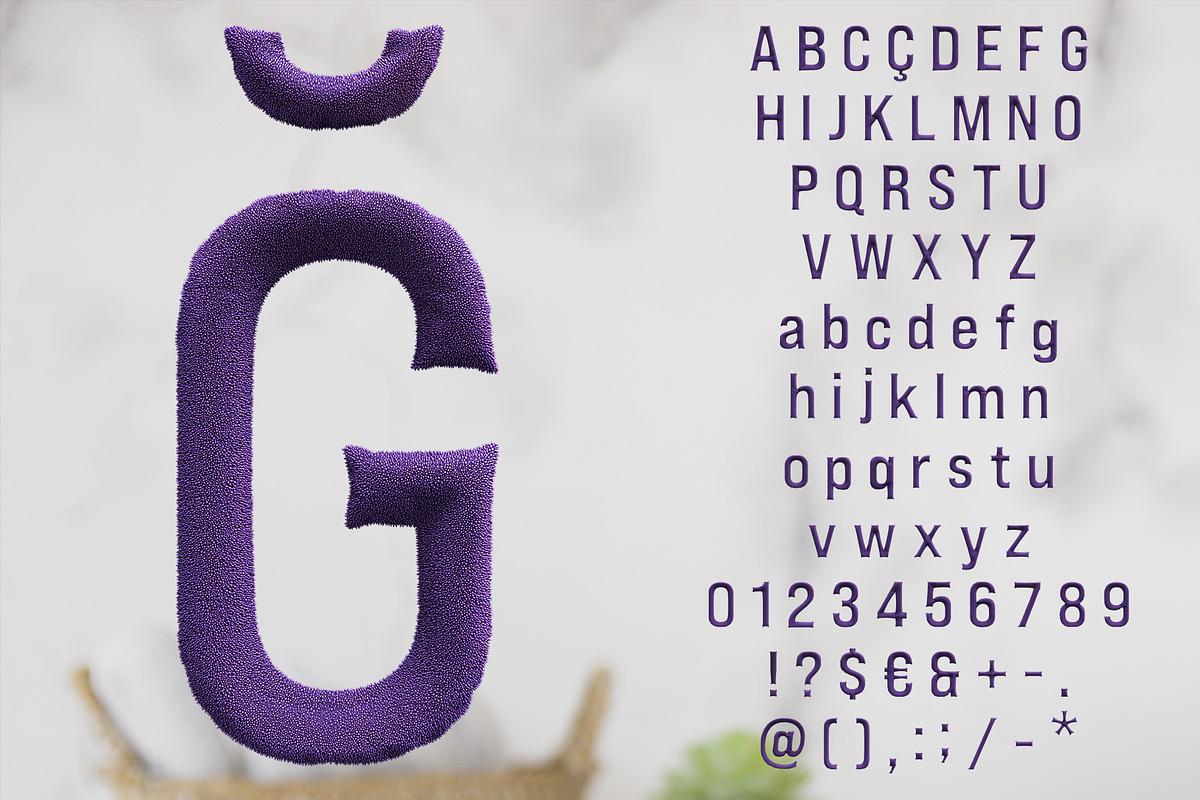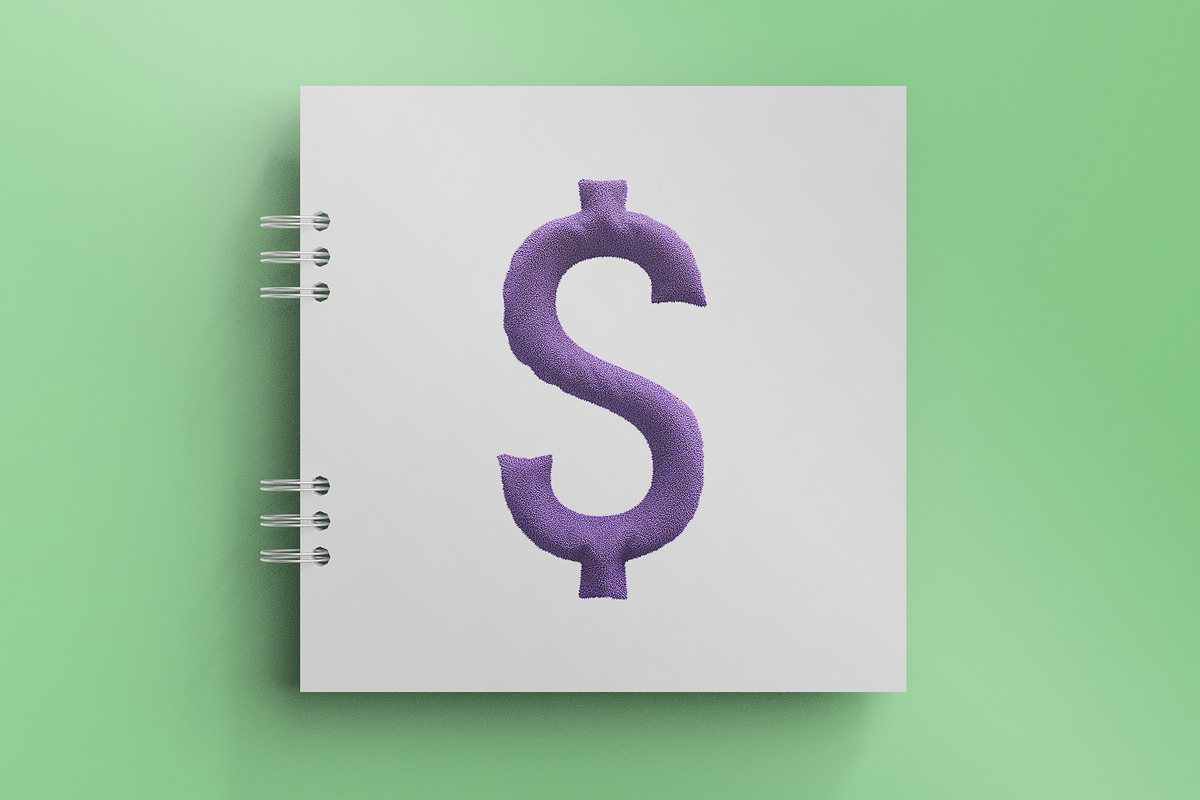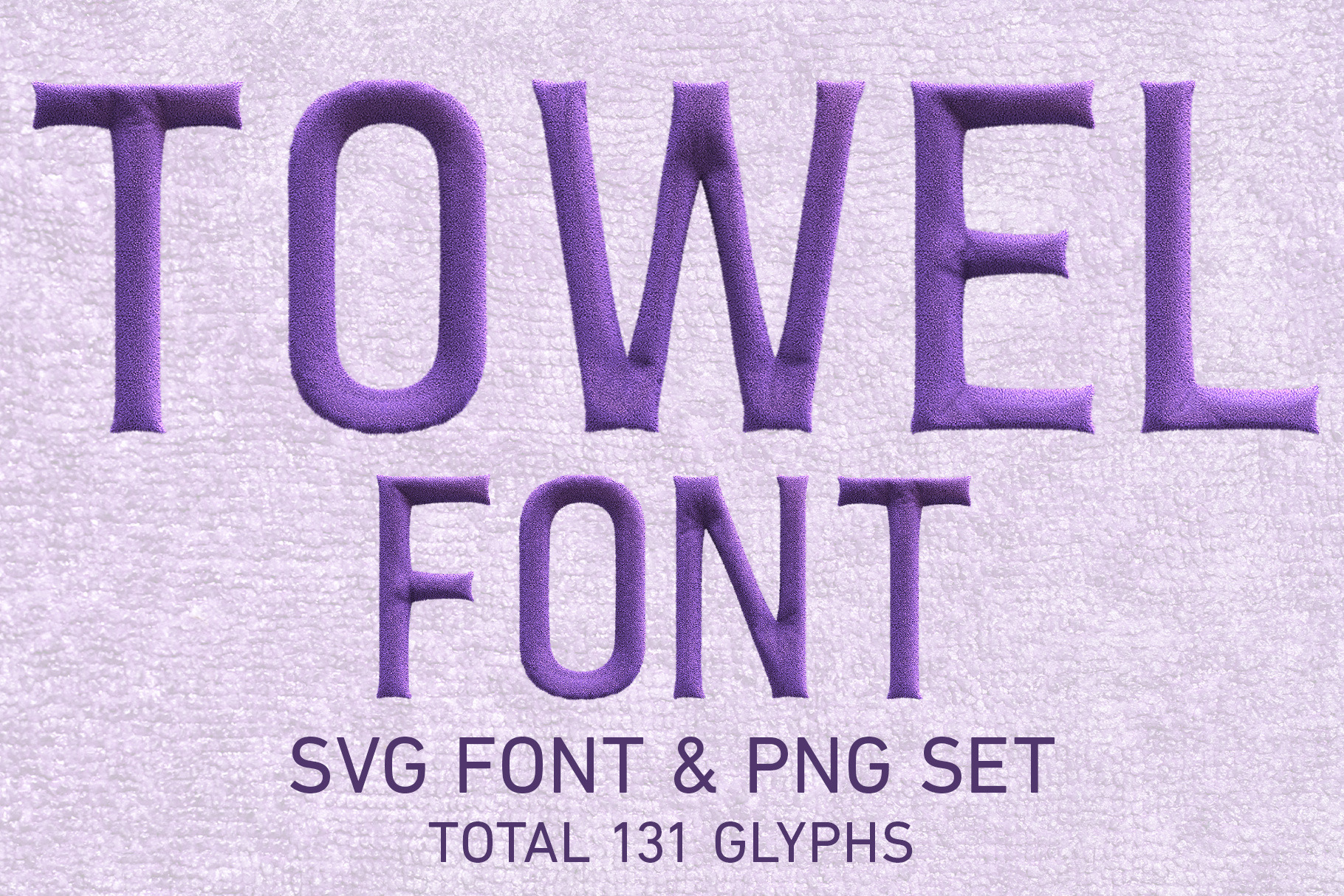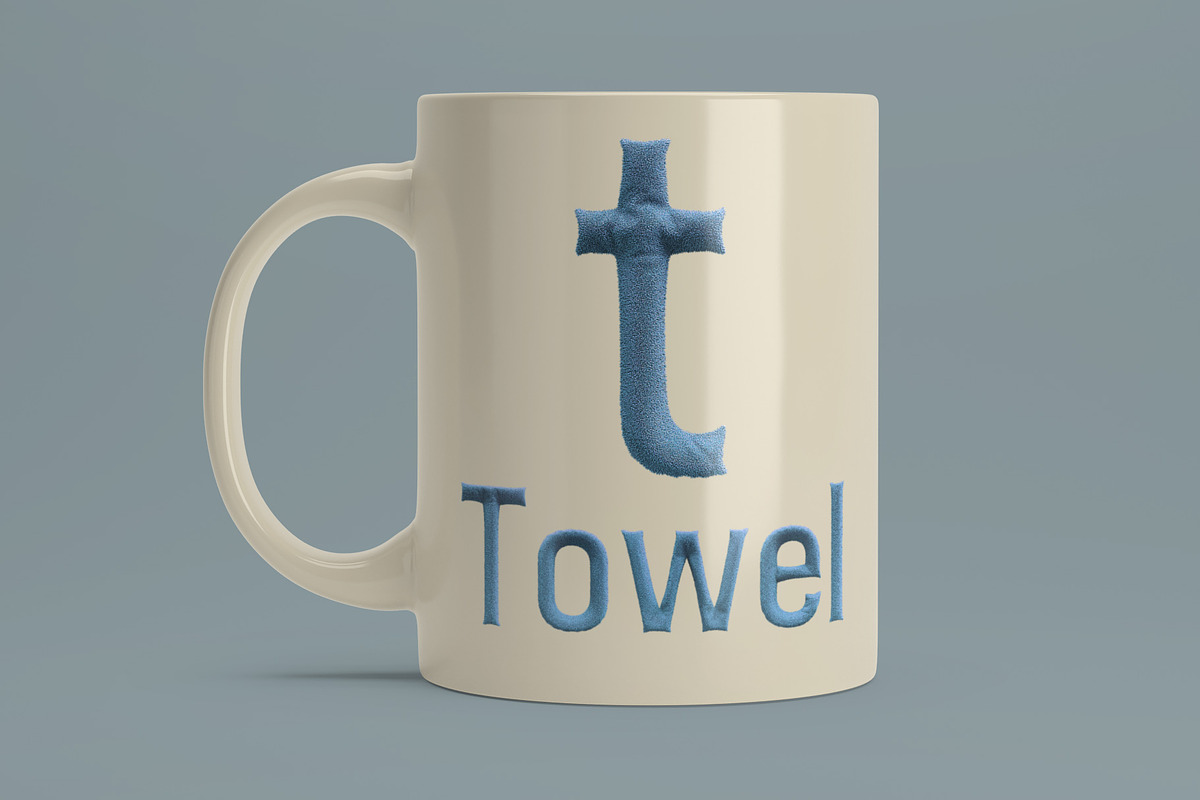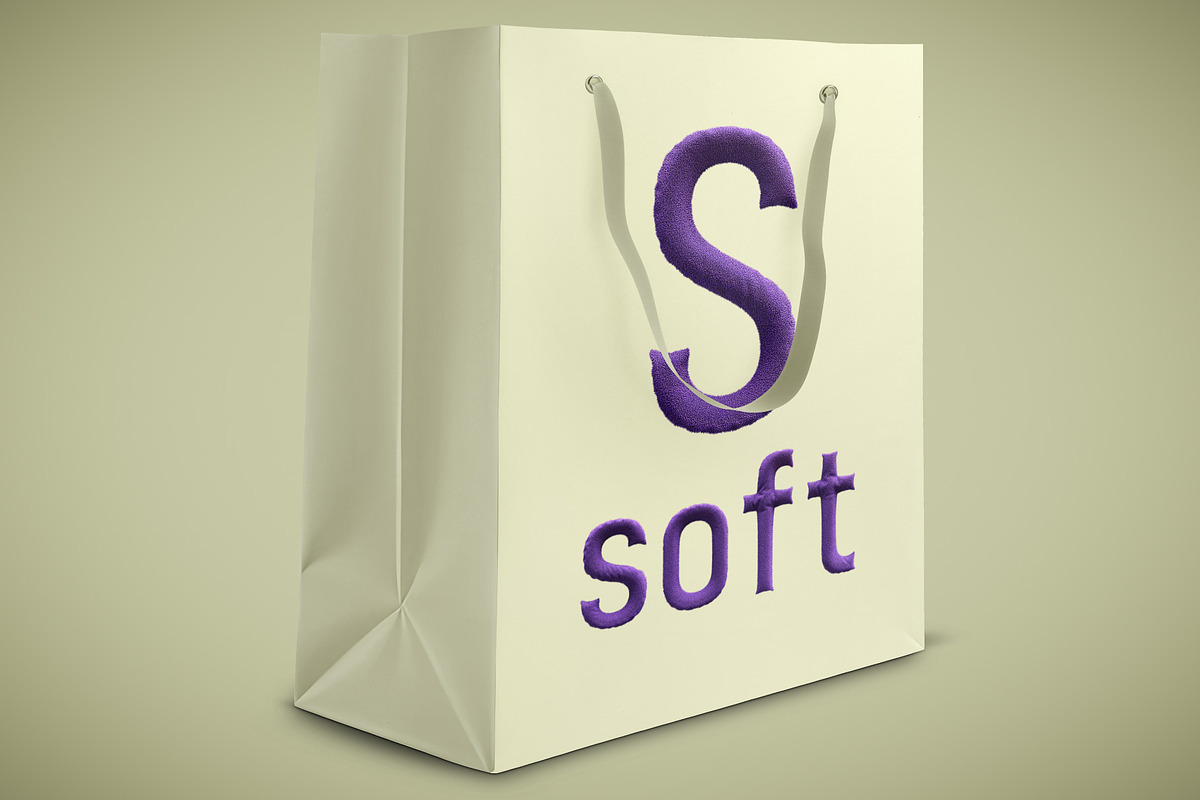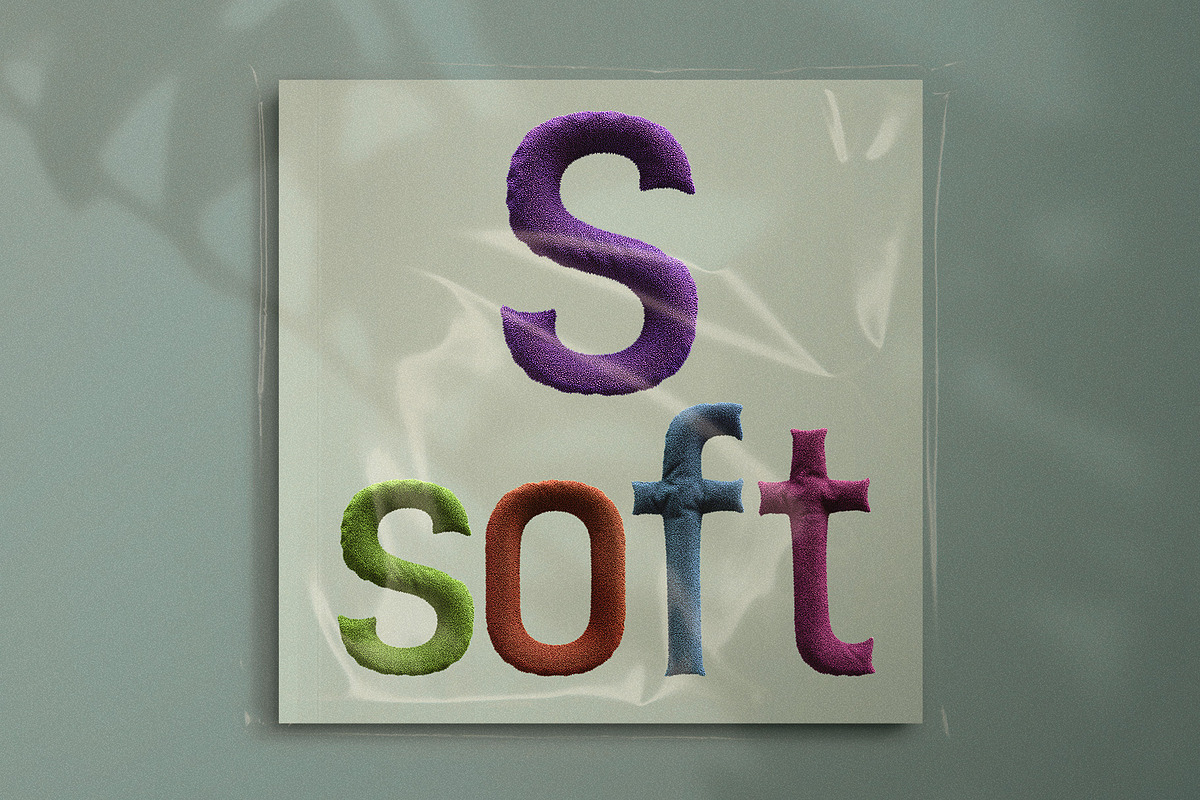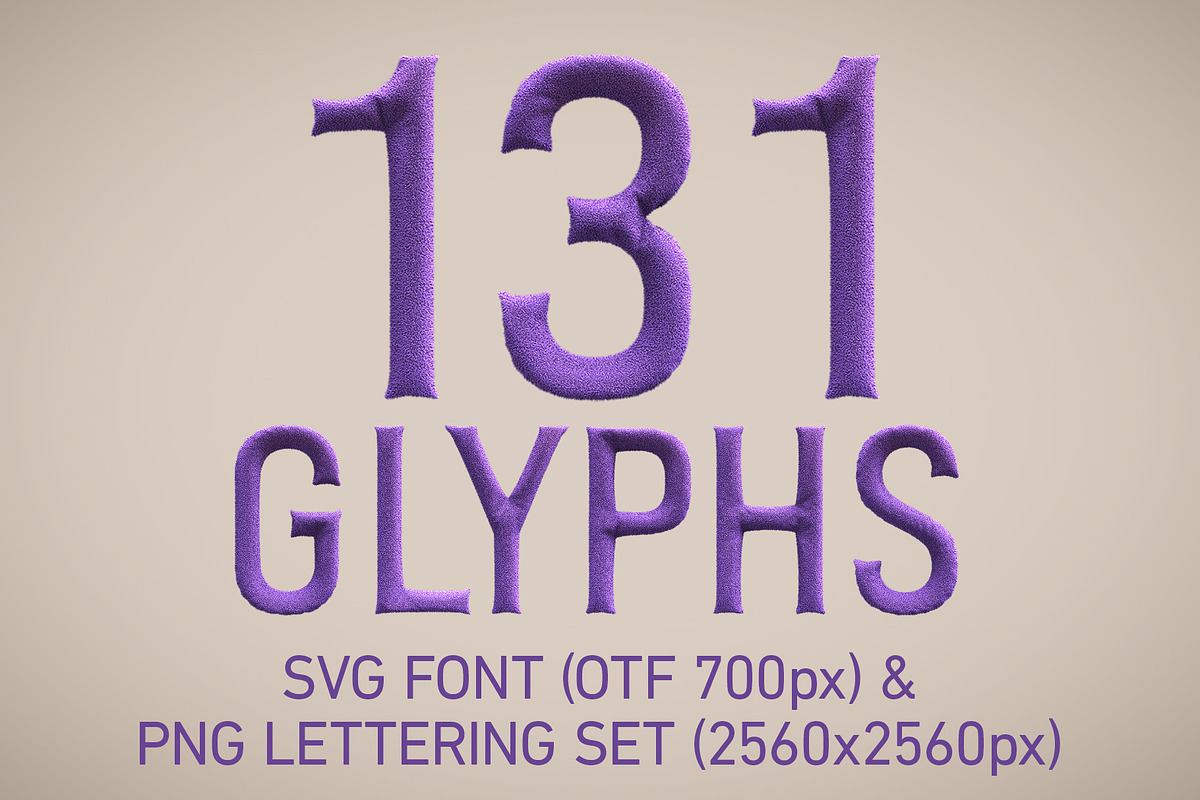
Towel SVG Font & PNG Set
The Towel Color SVG Font and PNG 3D Lettering Set
The Towel Color SVG Font and PNG 3D Lettering Set is a unique and versatile design resource for graphic designers, illustrators, and creatives. The set includes a font with 131 glyphs, each designed in a 3D style with a textured towel color finish. Additionally, each letter comes with a separate PNG file with a high resolution of 2560x2560 pixels, allowing for easy customization and use in various design projects.
This font and PNG set is perfect for creating eye-catching typography for a wide range of design applications, such as posters, flyers, social media graphics, logos, branding, and more. The towel color finish adds a realistic and unique touch to any design, making it stand out and grab the viewer's attention. The set is easy to use, and the PNG files can be used with any design software or application.
Overall, the Towel Color SVG Font and PNG 3D Lettering Set is a great investment for any designer looking to add a unique touch to their typography and design projects.